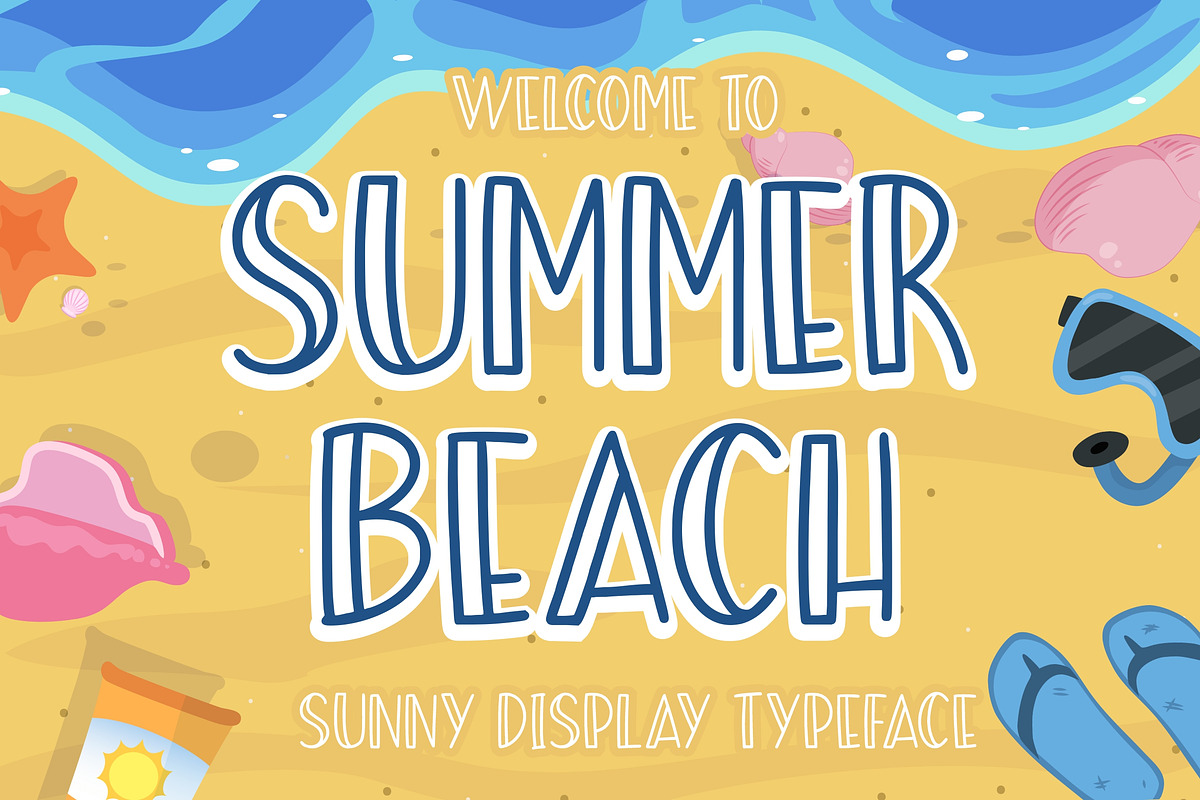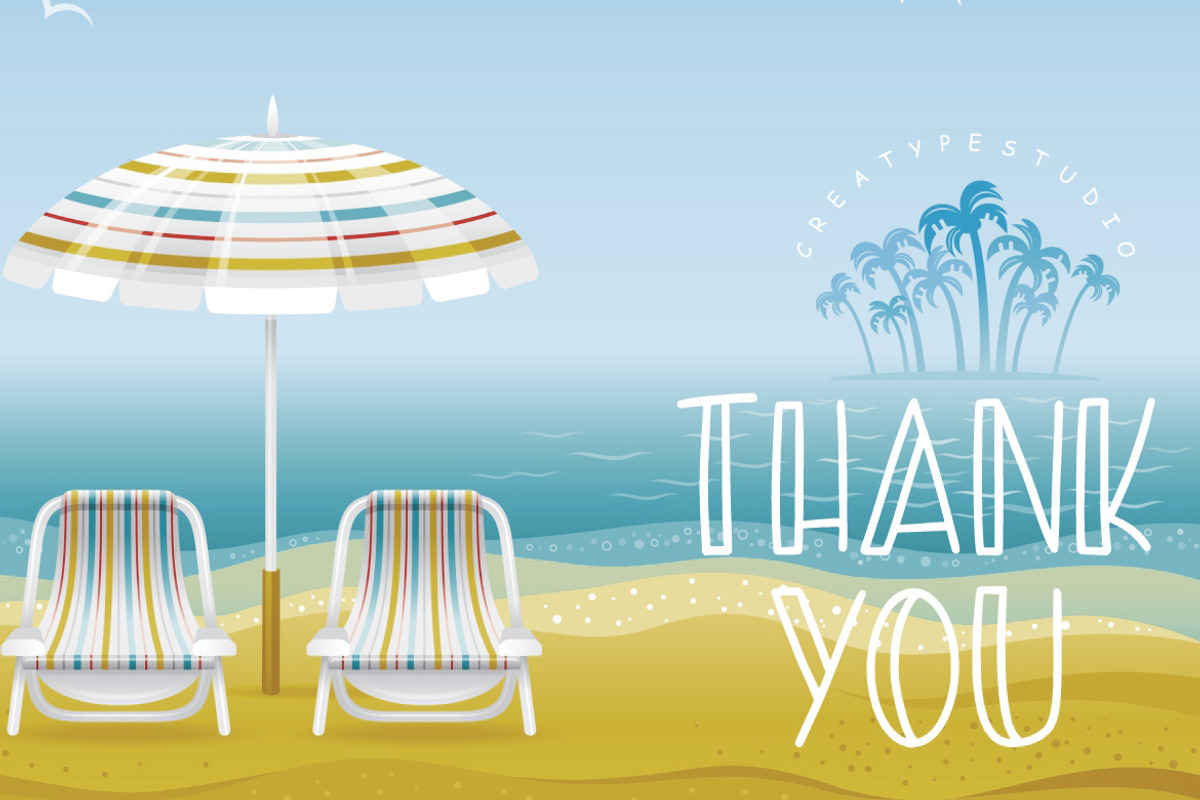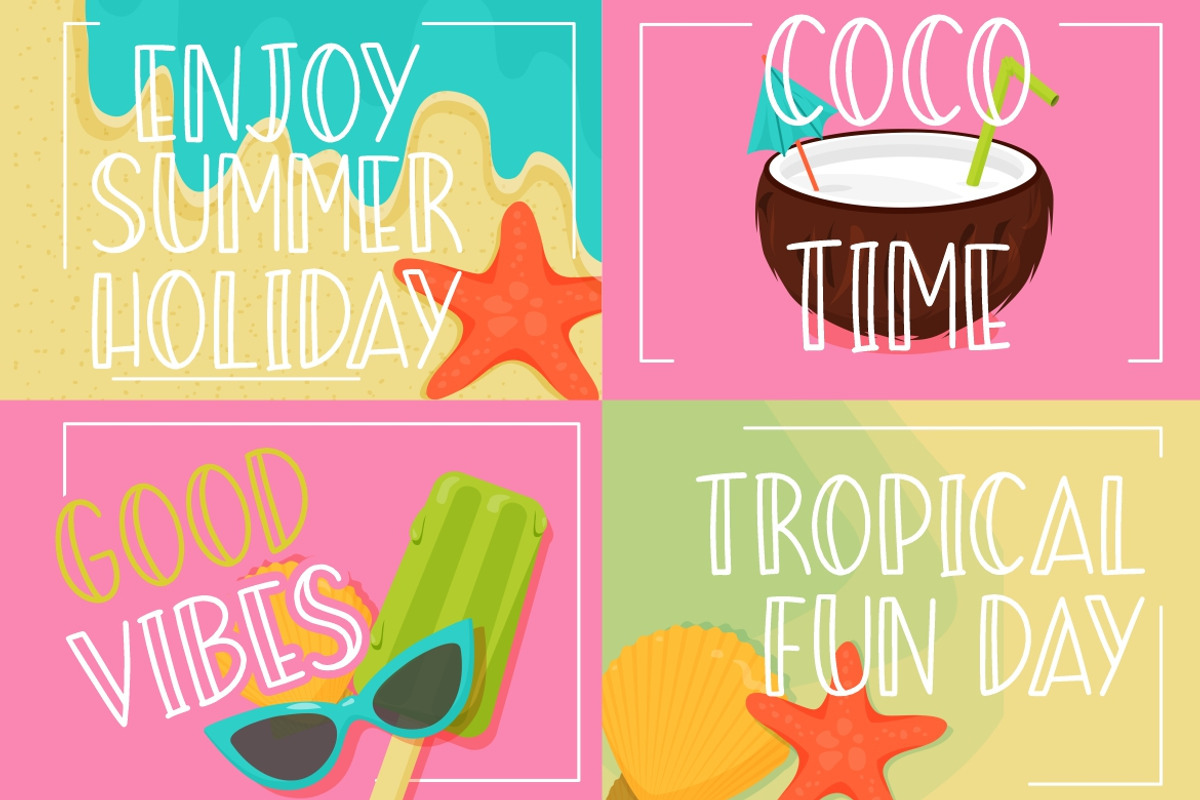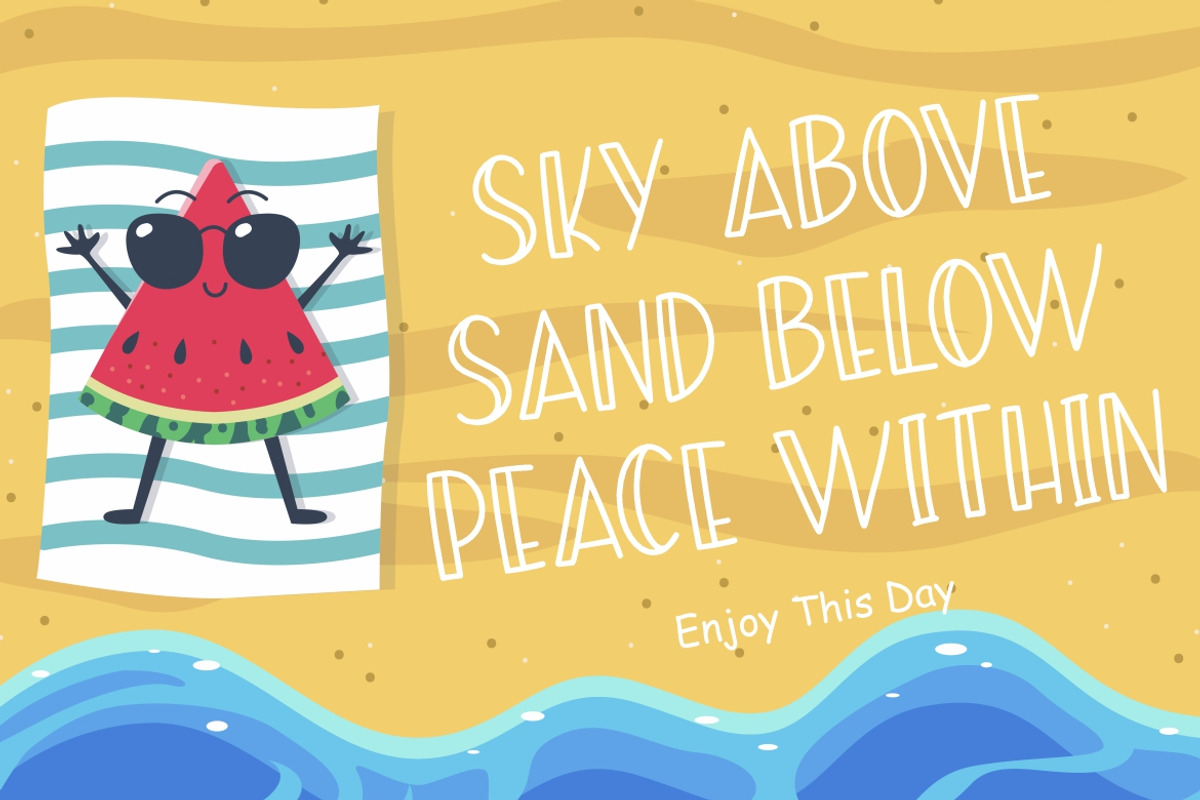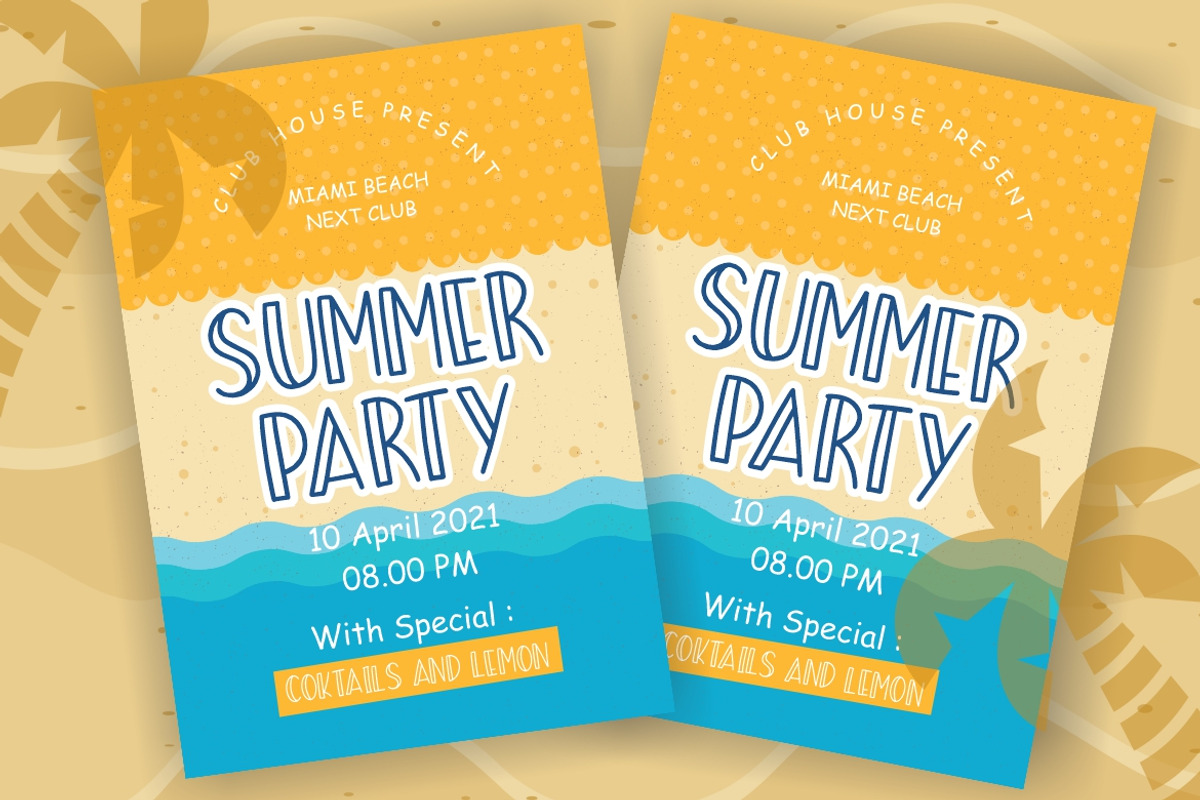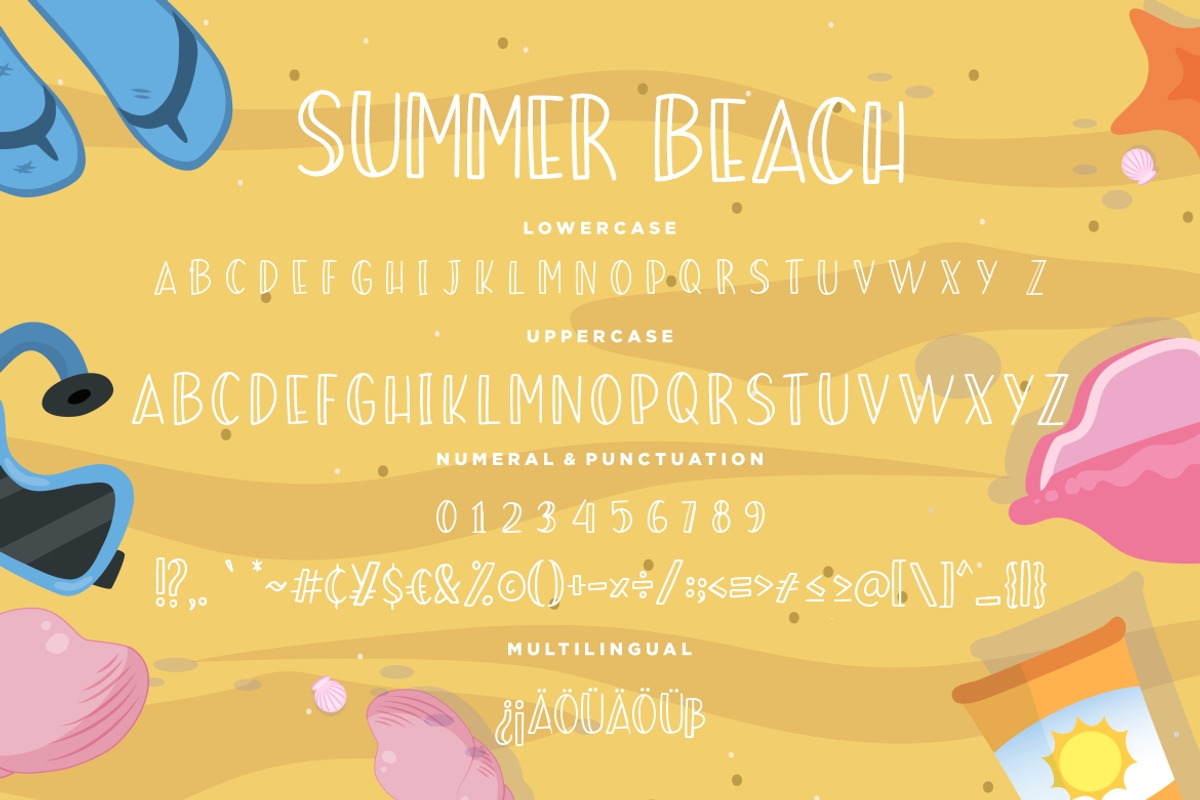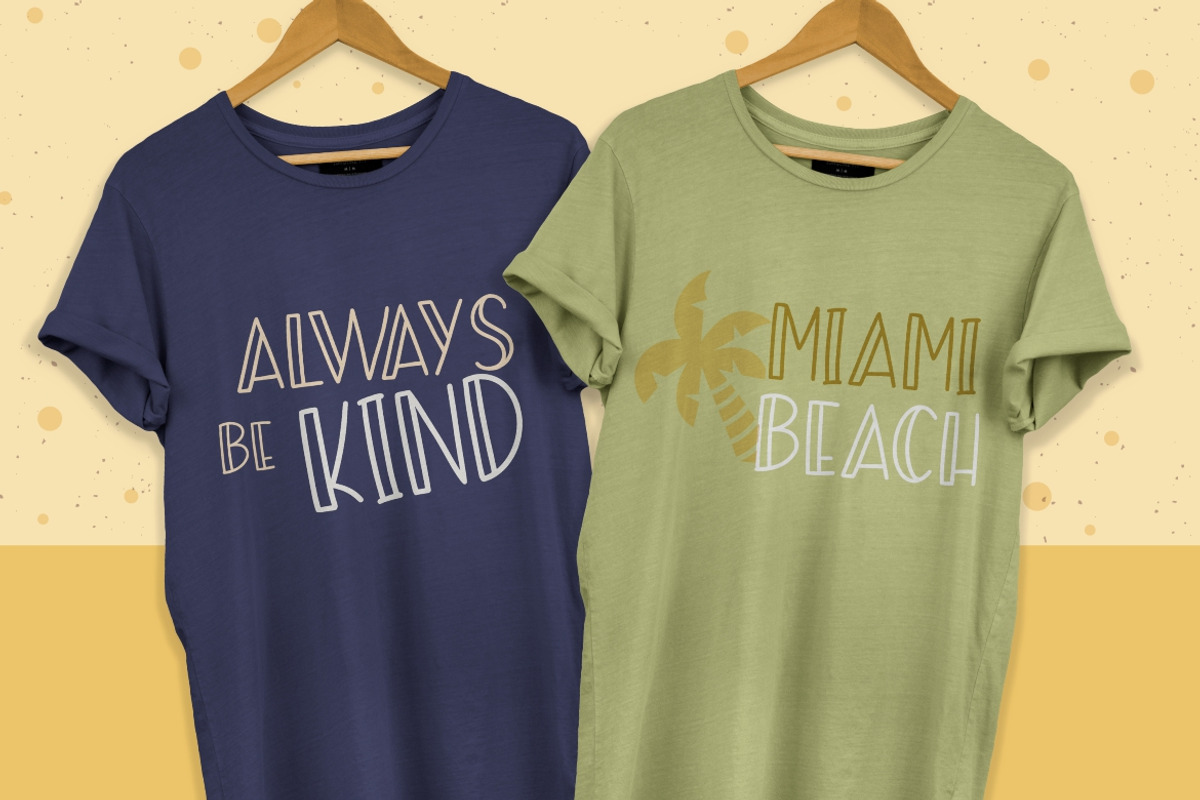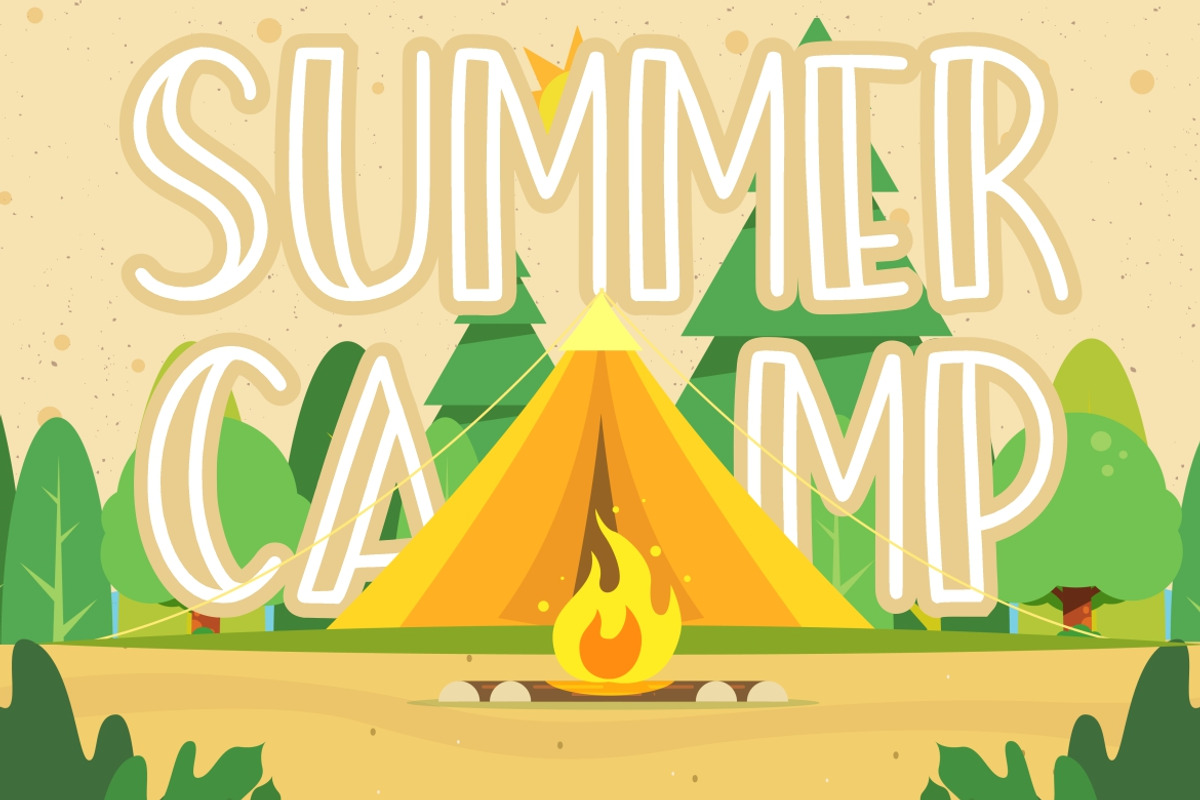
Summer Beach Sunny Display Typeface
Summer Beach is sunny display font with warm and fun which suitable to use for children related occasion.
Summer Beach is perfect for branding projects, logo, wedding designs, social media posts, advertisements, product packaging, product designs, label, photography, watermark, invitation, stationery and any projects that need handwriting taste.
- Fonts include multilingual support for; ä ö ü Ä Ö Ü ß ¿ ¡